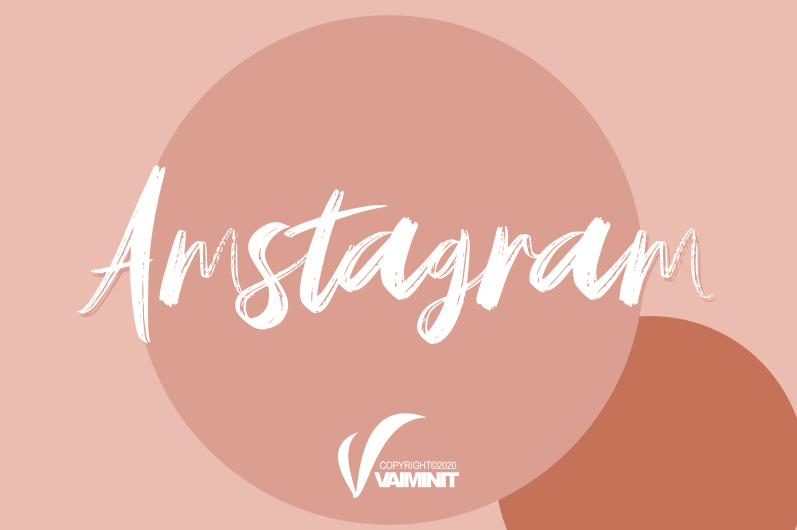
Amstagram Brush Script Font
Amstagram Script Font is modern brush font. Made for any professional project branding. Made from font designer Vaiminit . it will make your design project more beautiful. It is the best for branding, printing, wedding and quotes.